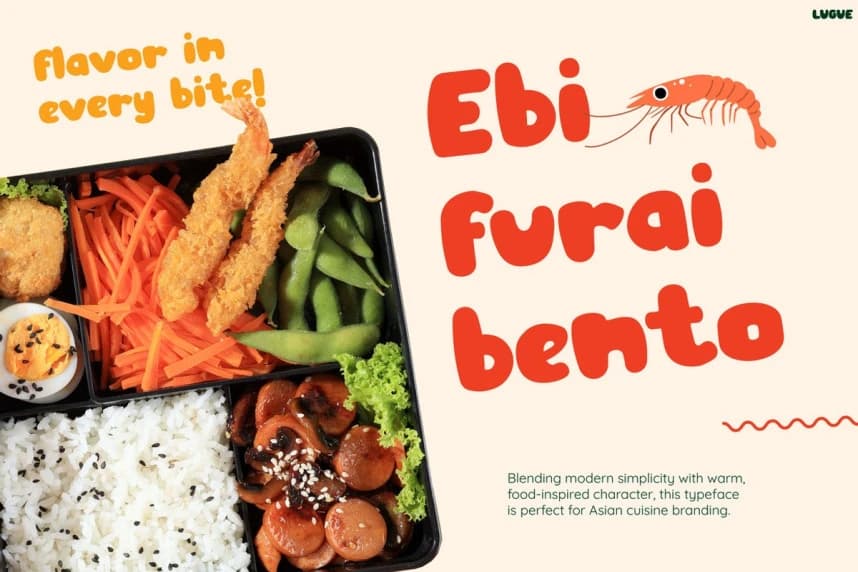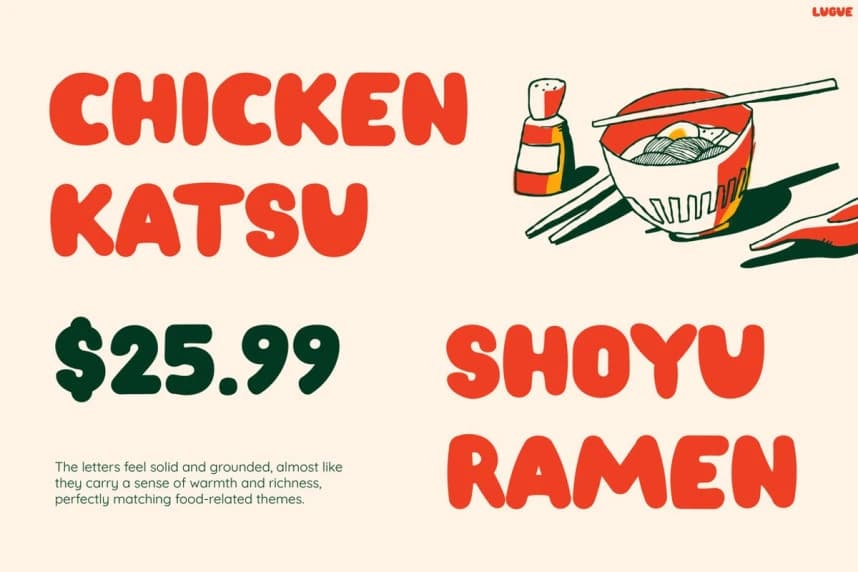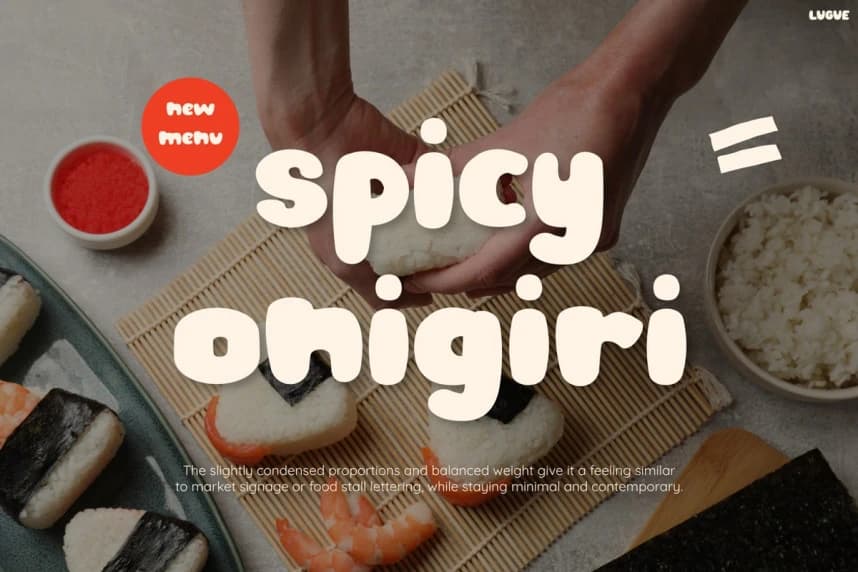
Lugue Display Font
Lugue Display Font stands out with chunky shapes and soft curves, making it instantly eye-catching. Moreover, it feels bold, friendly, and fun at the same time. In addition, its rounded style creates a warm and tasty vibe.